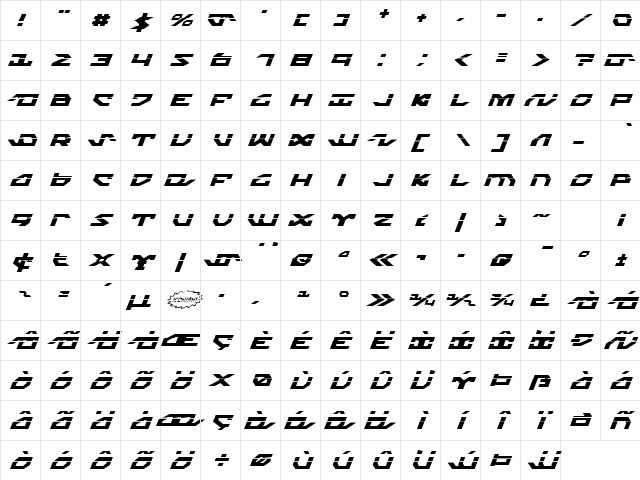
Nightrunner Laser Italic Laser Italic
Design Context for Nightrunner Laser Italic
Nightrunner Laser Italic is a composed and adaptable typeface that performs quietly and consistently across a wide range of design contexts. The slanted form adds forward momentum and visual energy.
Pro Tip: Use Nightrunner Laser Italic for emphasis, pull quotes, and subheadings where its slanted energy can add rhythm to the layout.